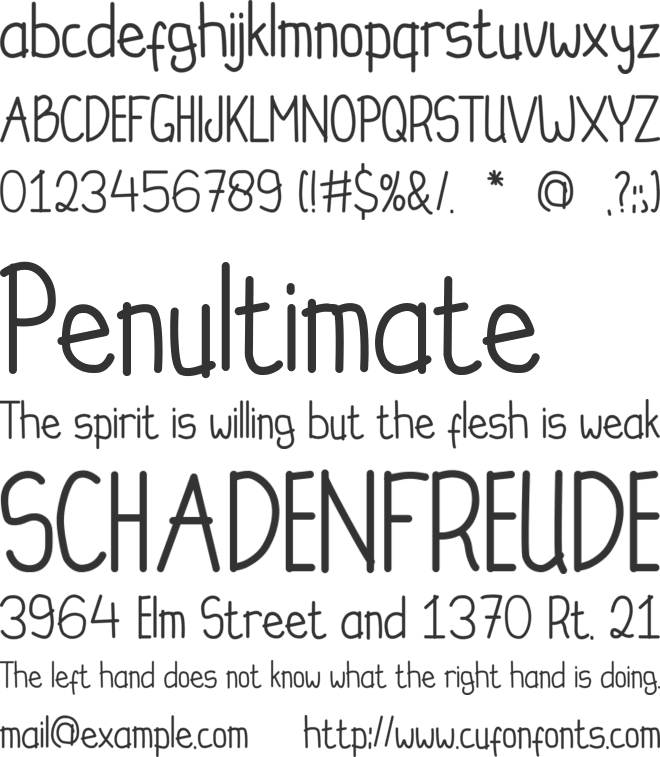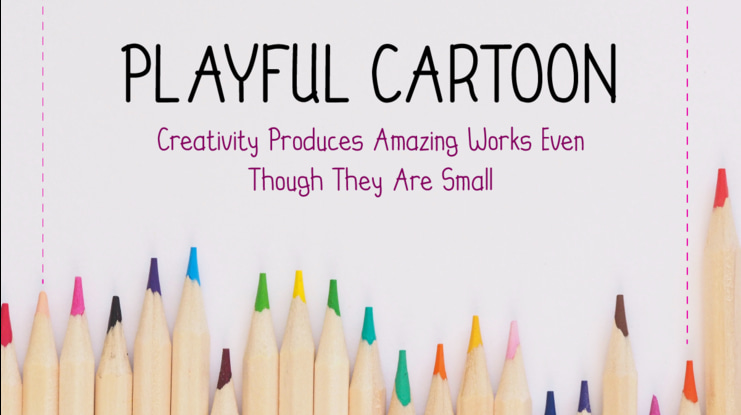
PLAYFUL CARTOON Font
Playful Cartoon is designed in an enjoyable handwritten sans serif font style. Let’s try it for your projects, such as presentations, back-to-school, party decorations, posters, blogs, and social media posts. Add it now to your fonts library, and it will bring any of your DIY projects to life. For your make enjoy, I say thank your for buy